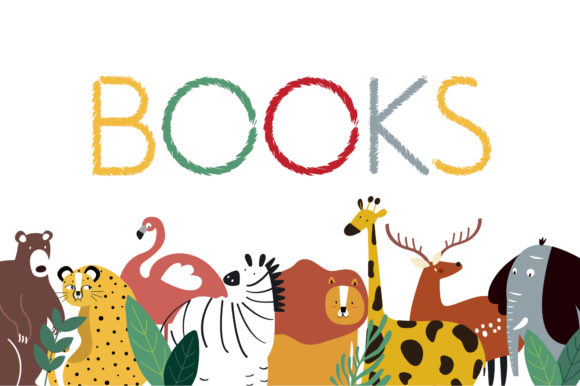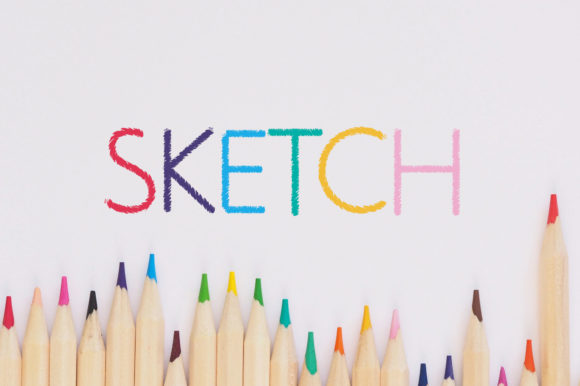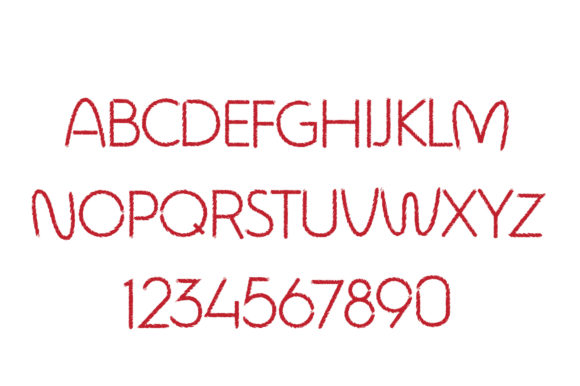
Crayons Font: A Sweet and Playful Addition to Your Design Arsenal
Are you a designer or crafter looking for a font that embodies the spirit of childhood wonder and creativity? Look no further than the Crayons font, a sweet and playful sketched display font that’s perfect for kids-themed designs. When paired with bright colors, this font is sure to bring a smile to anyone’s face.
The Inspiration Behind Crayons Font
The Crayons font is inspired by the classic crayons of our childhood, with their vibrant colors and imperfect, hand-drawn charm. The font’s creator aimed to capture the essence of these beloved art supplies, infusing the font with a sense of playfulness and imagination. The result is a font that’s both fun and functional, making it ideal for a wide range of design projects.
Key Features of Crayons Font
So, what makes the Crayons font so special? Here are just a few of its key features:
- Sketched display font: The Crayons font has a beautifully imperfect, hand-drawn quality that gives it a unique and charming feel.
- Playful and whimsical: This font is designed to evoke the sense of wonder and creativity that comes with childhood, making it perfect for kids-themed designs.
- Highly legible: Despite its playful nature, the Crayons font is highly legible, even at smaller sizes.
- Multilingual support: The Crayons font supports multiple languages, making it a great choice for designers working on international projects.
Uses for Crayons Font
The Crayons font is incredibly versatile, and can be used in a wide range of design projects, including:
- Kids’ party invitations: Add a touch of whimsy and fun to your party invitations with the Crayons font.
- Children’s book titles: The Crayons font is perfect for kids’ book titles, adding a playful touch to your book covers.
- Crafting and DIY projects: Use the Crayons font to add a personal touch to your crafting and DIY projects, such as signs, labels, and cards.
- Educational materials: The Crayons font is a great choice for educational materials, such as worksheets, activity sheets, and educational posters.
Tips for Using Crayons Font
To get the most out of the Crayons font, here are a few tips to keep in mind:
- Pair with bright colors: The Crayons font is designed to be paired with bright, bold colors. Experiment with different color combinations to find the perfect match.
- Use it sparingly: While the Crayons font is playful and fun, it can be overwhelming if used too much. Use it sparingly to add a touch of whimsy to your design.
- Experiment with different sizes: The Crayons font looks great at a range of sizes, from large display fonts to smaller body text.
| Font Name | Crayons Font |
| Author | Vladimir Carrer |
In conclusion, the Crayons font is a sweet and playful addition to any designer’s arsenal. Its unique, hand-drawn quality and whimsical feel make it perfect for kids-themed designs, while its high legibility and multilingual support make it a great choice for a wide range of projects. Whether you’re a designer, crafter, or educator, the Crayons font is sure to bring a touch of childhood wonder to your work.
Get Creative with Crayons Font